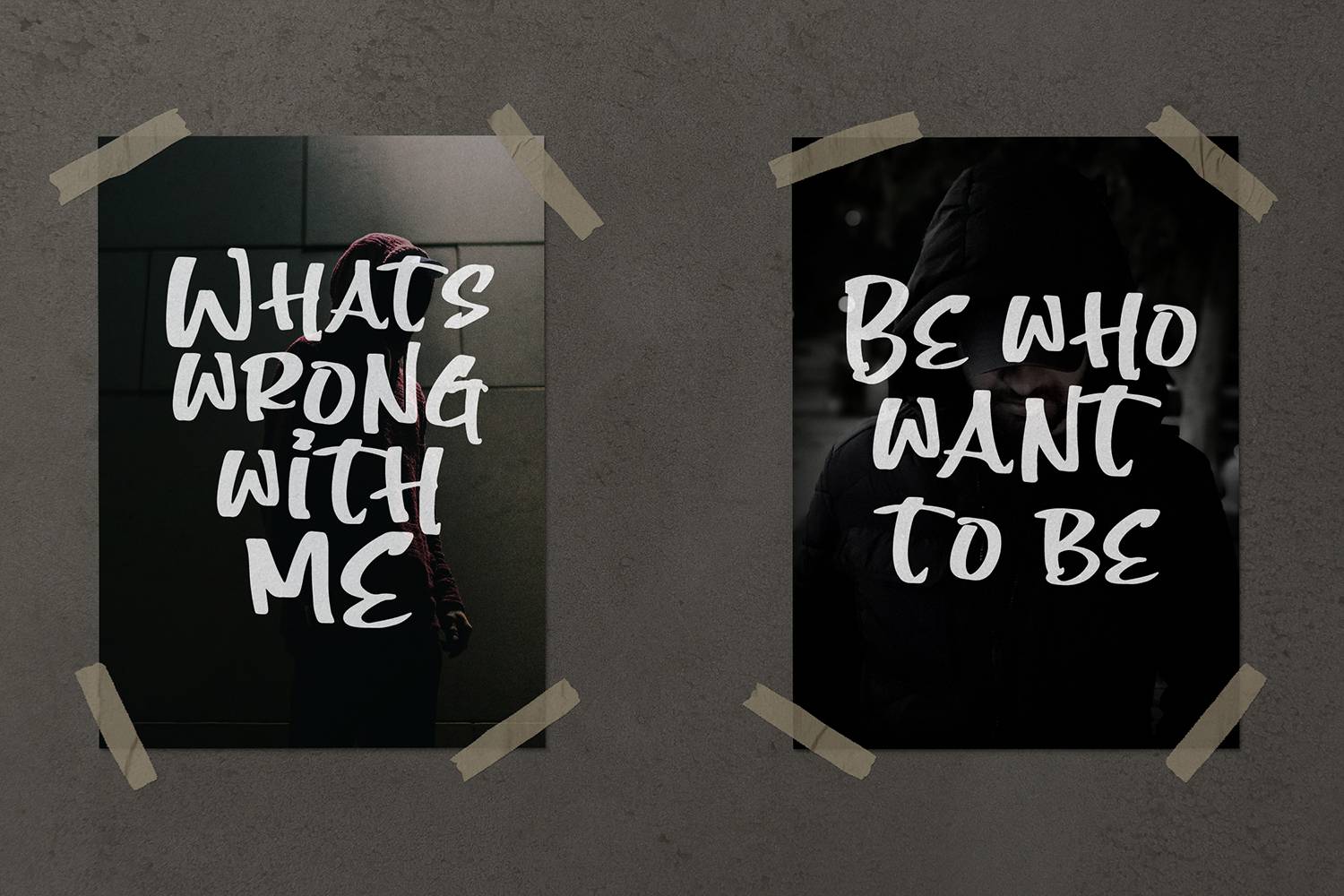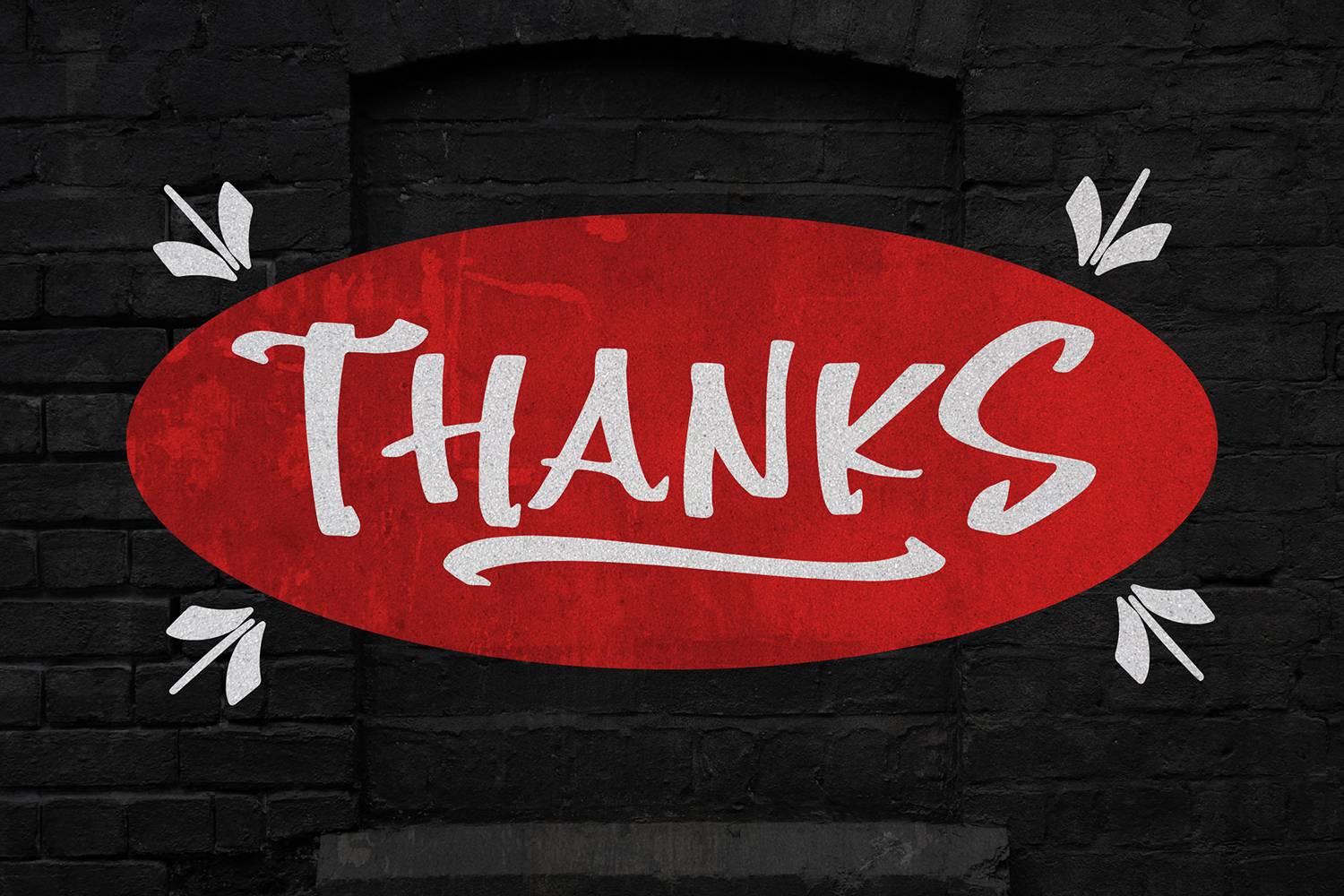
Smooth Font is a playful and casual handwritten script with a bold weight and lively, organic strokes that give it a friendly, approachable feel. Its irregular letter shapes and dynamic flow make it perfect for creative projects, children’s designs, or any branding that wants a personal, informal touch. This font works best in headlines, logos, and packaging where a warm, handcrafted vibe is desired.
Smooth Font
About Smooth Font